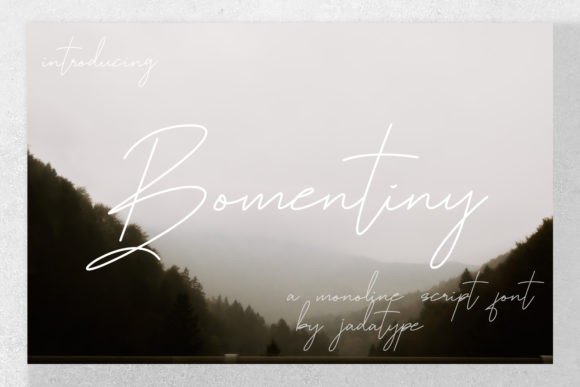
Step into a world of enchanting aesthetics with Bomentiny, the calligraphy script font that is a visual symphony of charm and sophistication. Crafted with meticulous attention to detail, this script font is designed to elevate your creative projects to the realm of elegance.
Bomentiny is more than just a font; it's an artistic expression that weaves romance, grace, and timeless beauty into every letterform. Each character dances across the page with fluidity and rhythm, capturing the essence of heartfelt expressions and enchanting narratives.